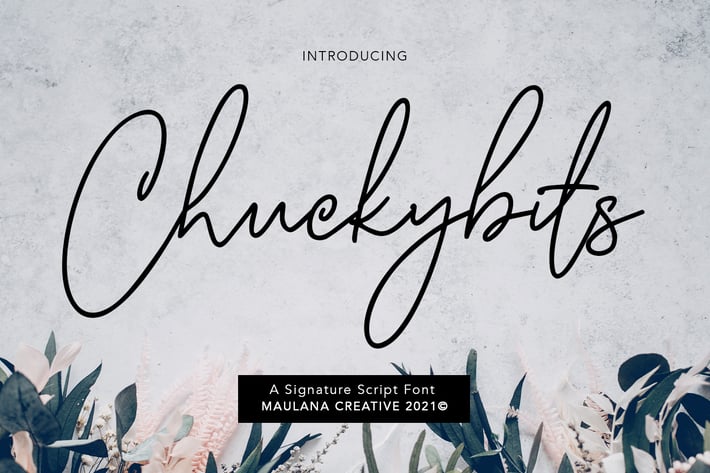
Chuckybits Fancy Signature Script Font
Chuckybits is a fancy casual script font With clean monoline stroke and fun character. It has Opentype features of ligatures, To give you an extra creative work. Chuckybits script script font support multilingual more than 100+ language. This font is good for logo design, Social media, Movie Titles, Books Titles, a short text even a long text letter and good for your secondary text font with sans or serif. Make a stunning work with Chuckybits casual script font.